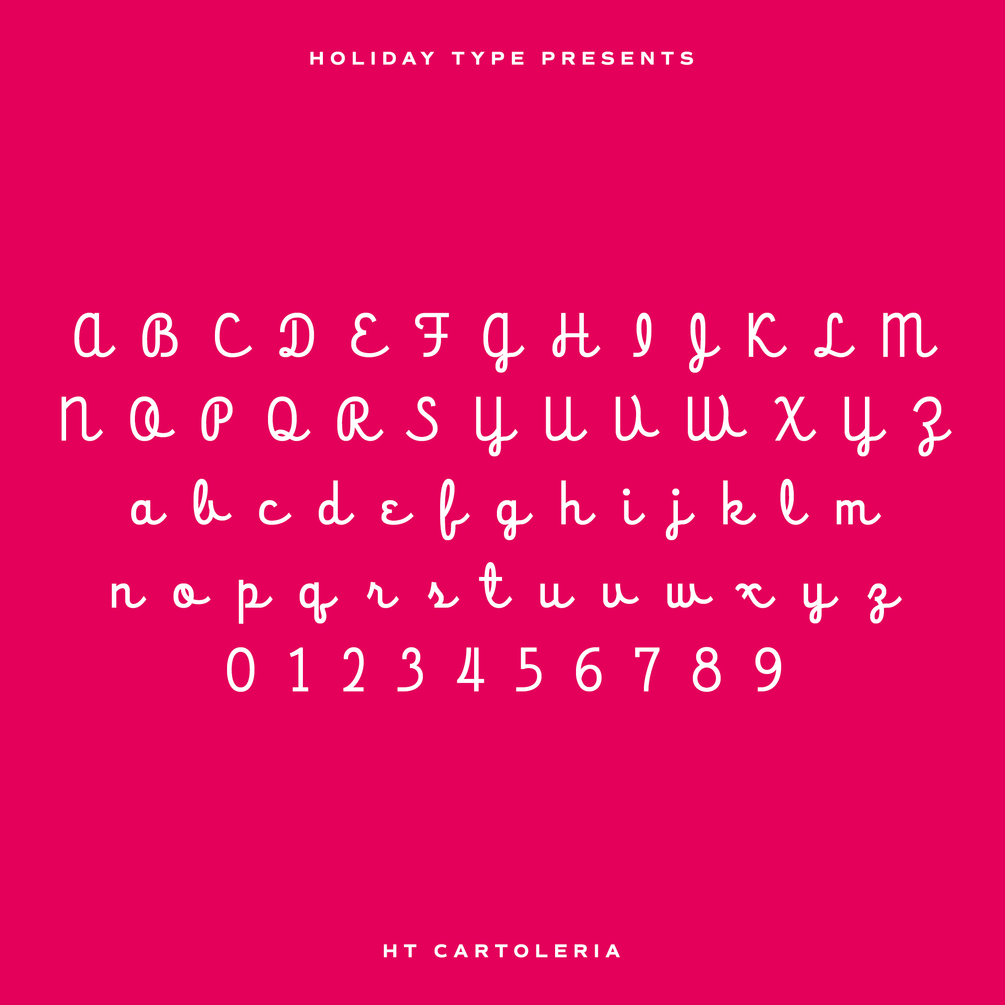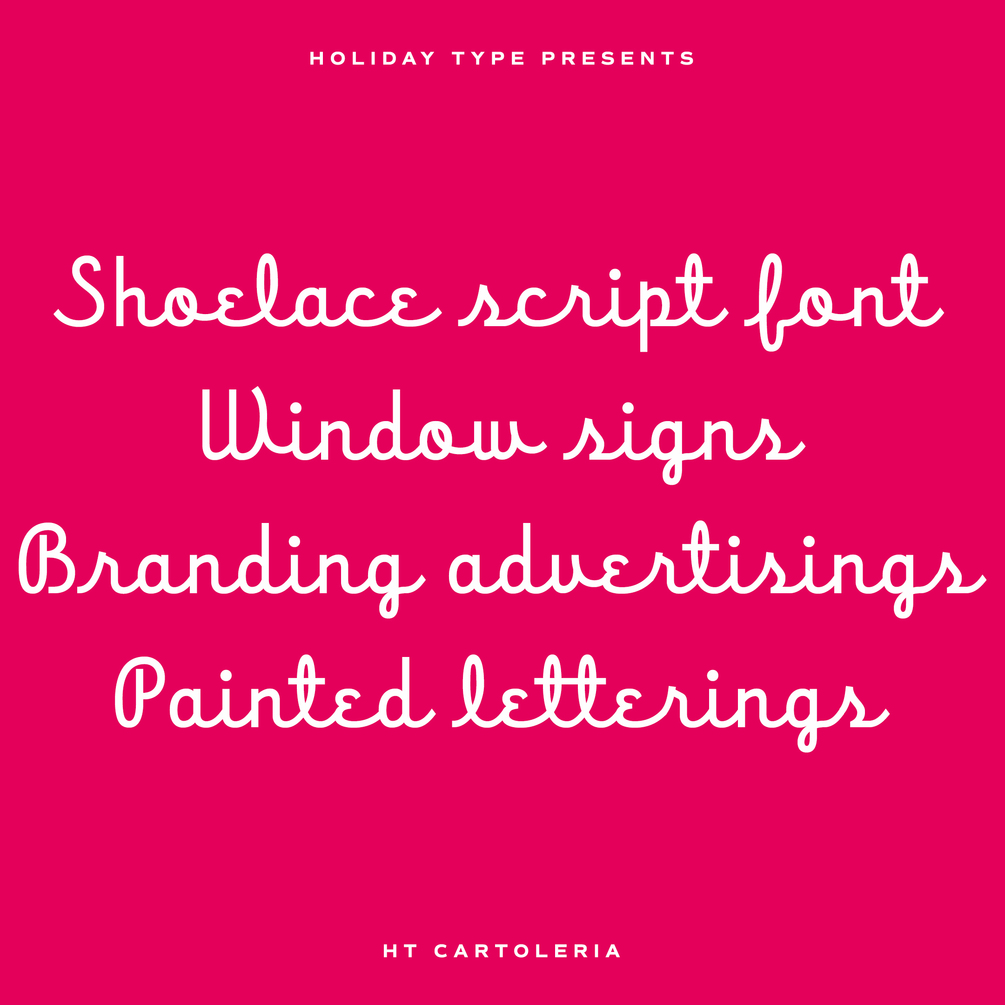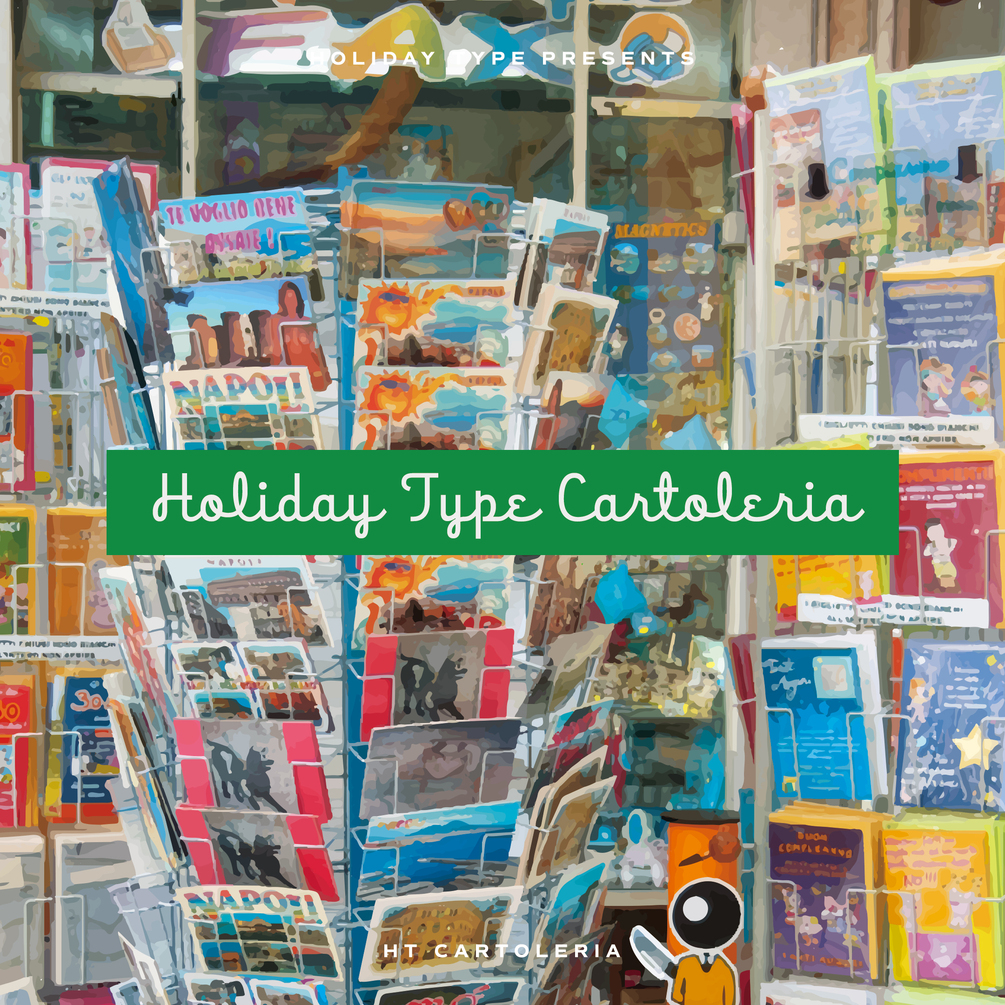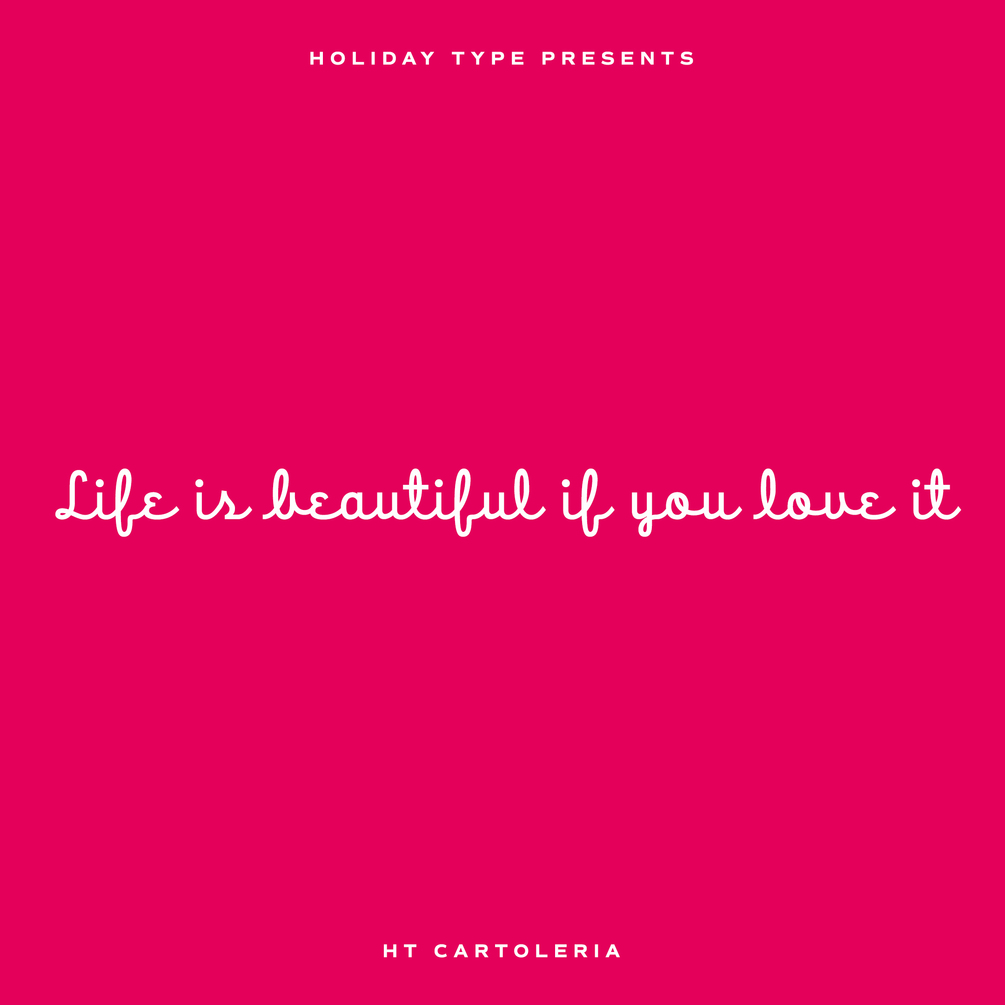
HT Cartoleria
Retro script based on shopfront lettering, wallpaint advertisements in Italy around 1950s. This font has a lovely roundish shape and gives us cute and relax impression. But because it is upright, it has a well-ordered atmosphere.